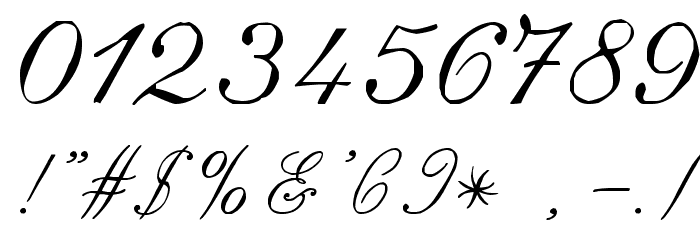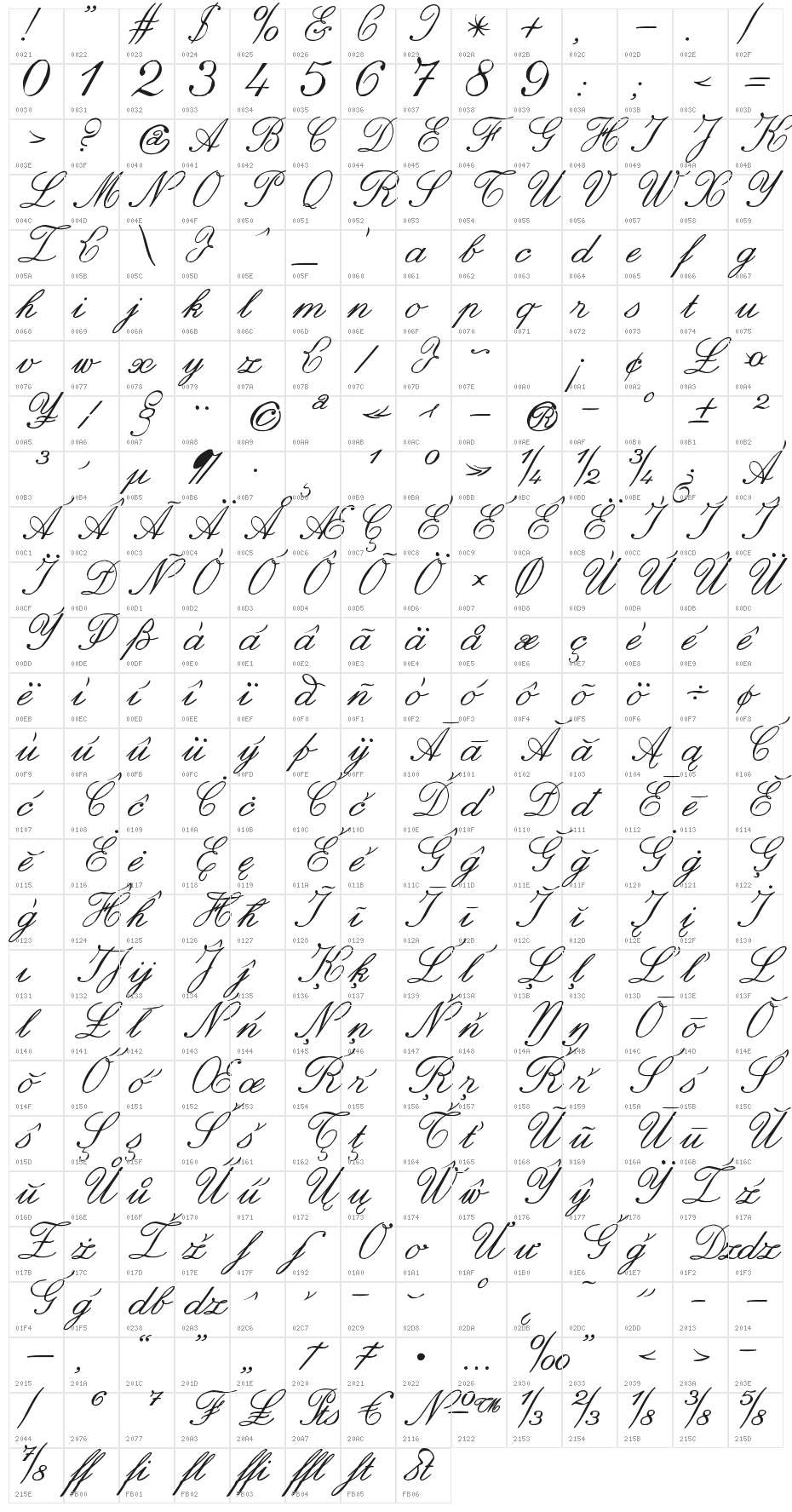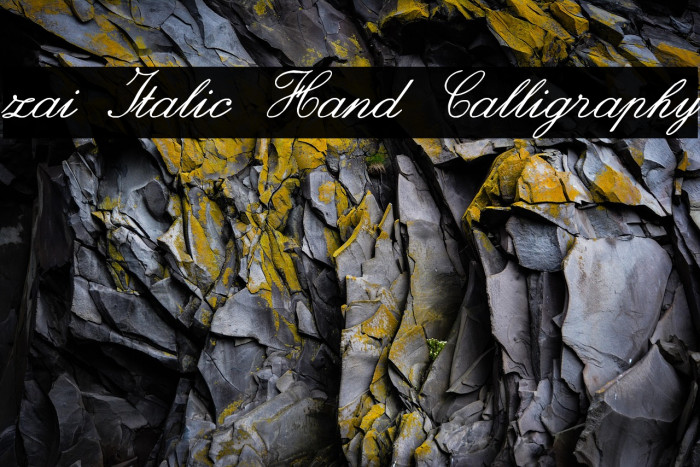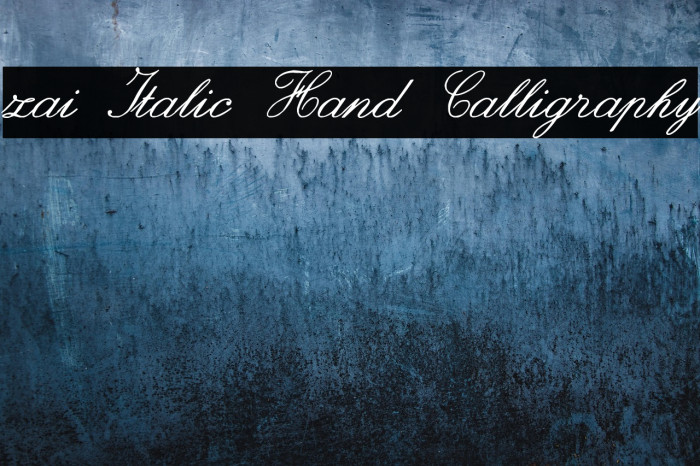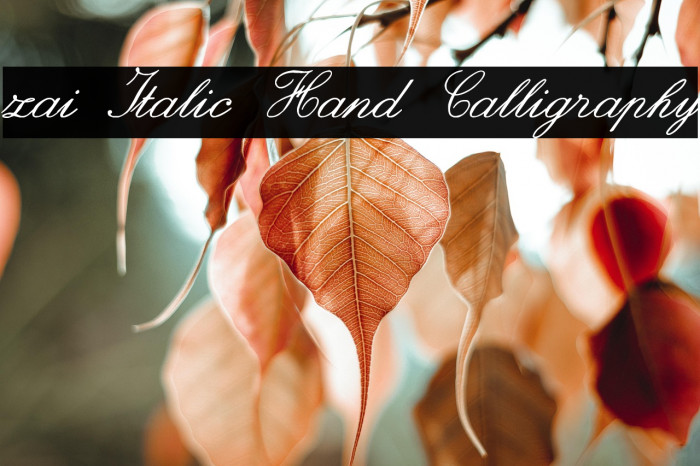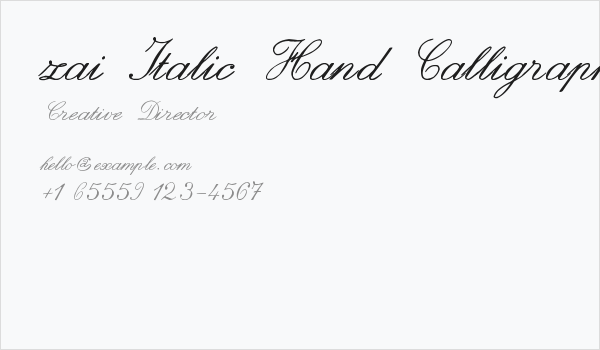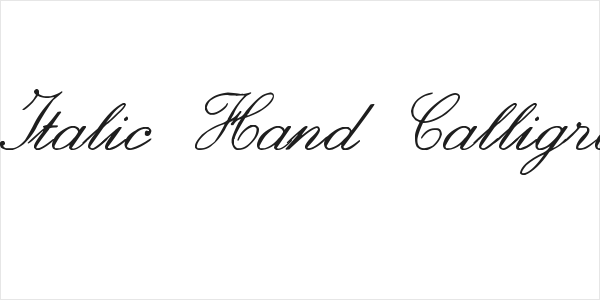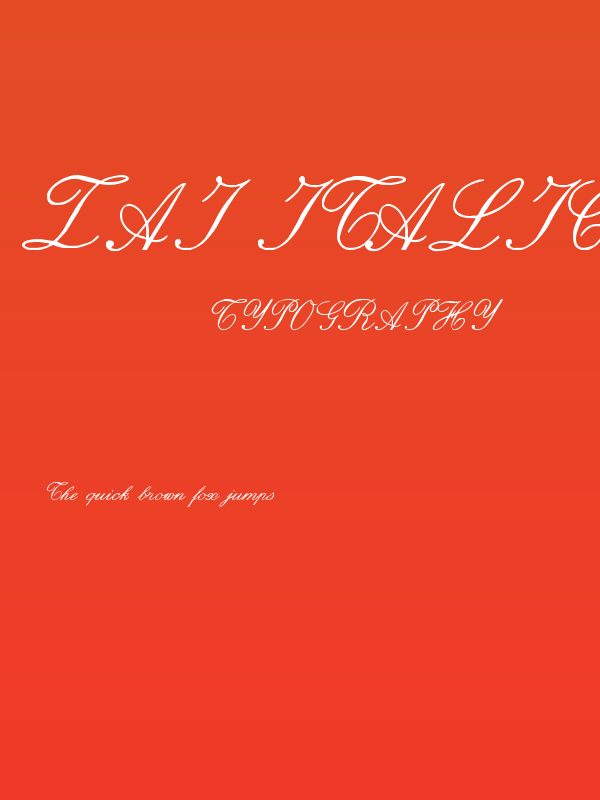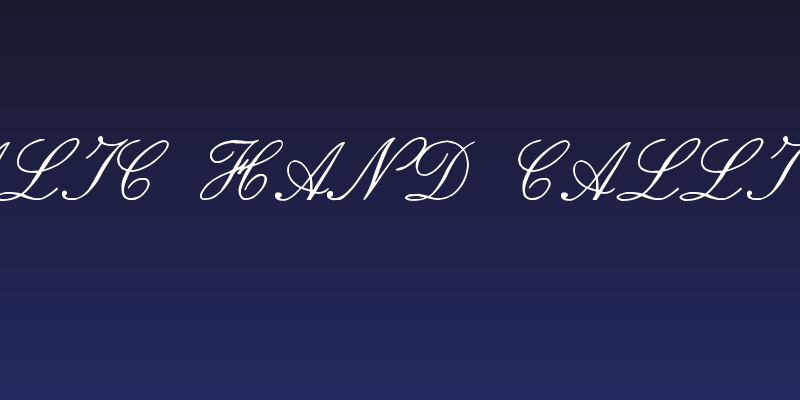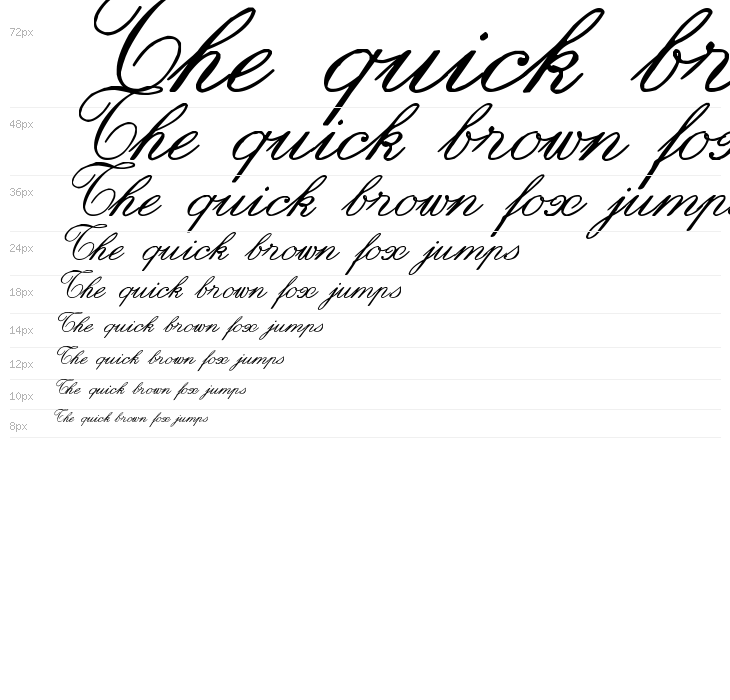
zai Italic Hand Calligraphy Font
zai Italic Hand Calligraphy Description
This elegant script font features a flowing, cursive style that mimics traditional calligraphy. The letters are interconnected, creating a seamless and sophisticated look. The uppercase characters are slightly more ornate, with flourishes that add a touch of formality. The lowercase letters maintain a consistent slant, enhancing the fluidity of the text. Numbers and special characters are designed to match the overall aesthetic, ensuring a cohesive appearance across all text elements. The font's delicate strokes and graceful curves make it ideal for projects that require a touch of elegance and sophistication.
| Proposed Projects | Ideal for wedding invitations, elegant branding, greeting cards, and formal event programs. |